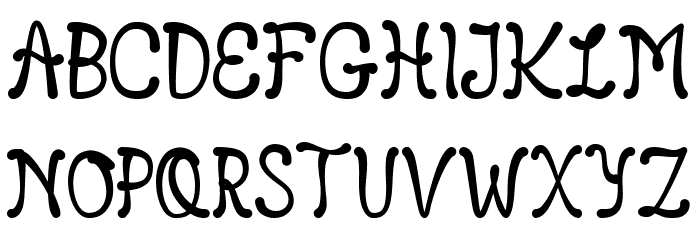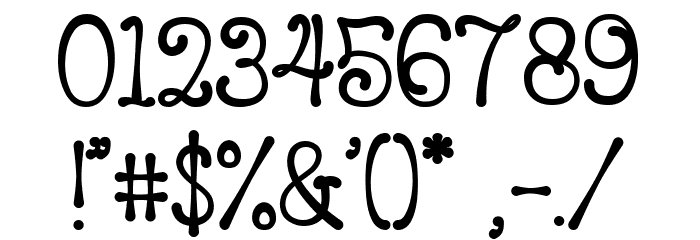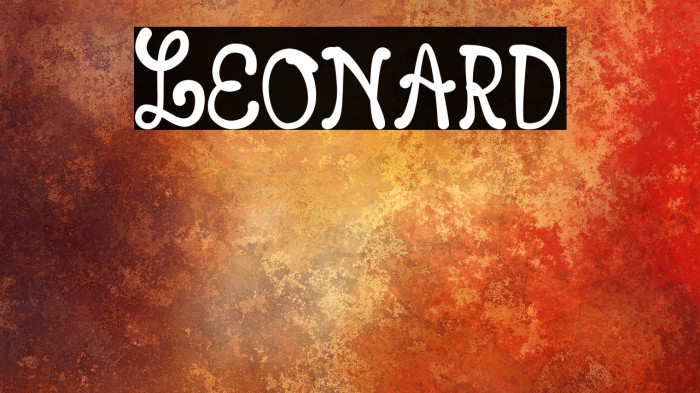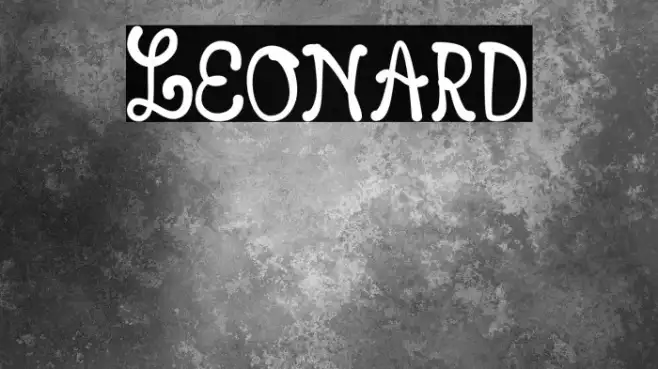
Leonard Font
This font features a playful and whimsical style with a handwritten appearance. The characters are bold and rounded, with a consistent stroke width that gives it a uniform look. The uppercase letters have a slightly exaggerated flair, while the lowercase letters maintain a more subdued yet still lively form. Numbers and special characters follow the same playful theme, making the font suitable for creative and informal projects. The overall design is approachable and friendly, making it ideal for projects that require a touch of personality and charm.
A playful, handwritten-style font with bold, rounded characters.
- Proposed Projects: Ideal for children's books, greeting cards, playful branding, and creative posters.
- Overall Style: Playful